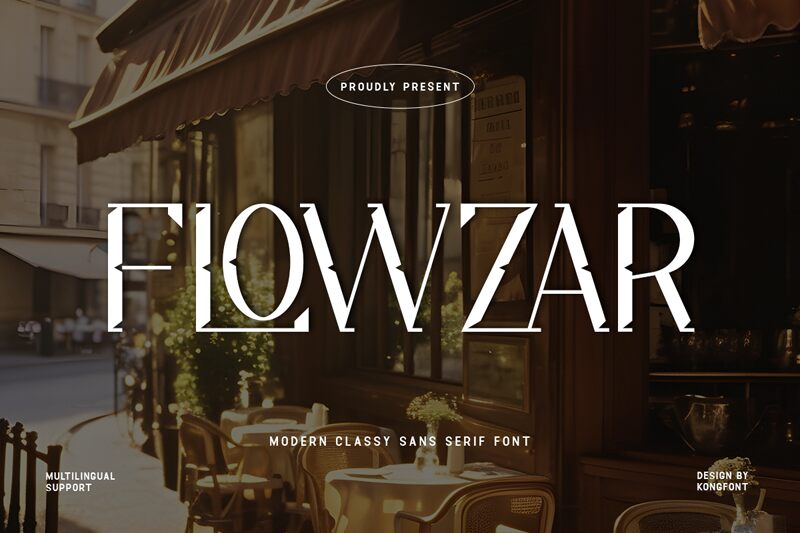
Flowzar font by Kong Font is a free decorative serif typeface that fuses sharp, architectural cuts with smooth, liquid curves. The letters feel both sculpted and fluid, with tall, elegant forms interrupted by dramatic vertical slices that catch the eye. It has a polished, fashion-forward mood—think glossy magazine covers, perfume packaging, or boutique branding—where every word needs to look intentional and a little bit dangerous.
Using Flowzar, headlines and logotypes gain a bold, cinematic presence that works beautifully for posters, album art, editorial titles, cosmetics, jewelry, and luxury event invitations. This free font shines at larger sizes, where its sculpted details and rhythm really show. Pair Flowzar with a clean, neutral sans serif for body copy to keep layouts readable while letting Flowzar handle the drama.